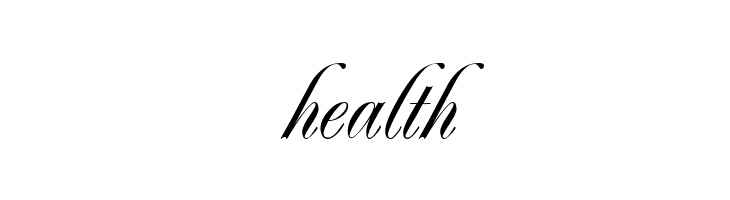
A bold, gothic-style font with intricate, three-dimensional detailing.
An elegant and sophisticated cursive script font with fluid, connected letters.
A bold, flowing script font with elegant curves and smooth lines.
A sophisticated italic font with a modern classic style and medium contrast.
A bold, decorative font with intricate flourishes and high contrast.
An ornate, decorative font with intricate swirls and vintage calligraphic style.
An elegant script font with intricate loops and swirls, perfect for refined and artistic projects.
A bold, flowing script font with elegant loops and high contrast.
An elegant, flowing script font with intricate, italicized characters.
An elegant, flowing script font with bold, italicized strokes and ornate flourishes.
An elegant, decorative script font with intricate swirls and flourishes.
A bold, decorative font with intricate serifs and ornate flourishes.
A modern and elegant font with smooth curves and a clean appearance.
A bold, expressive script font with high contrast and dynamic flow.
A bold, medieval-style font with Gothic influences and intricate detailing.
An elegant script font with flowing, ornate characters and sophisticated swashes.
An elegant script font with flowing, ornate characters and a sophisticated style.
An elegant script font with flowing, interconnected letters and elaborate swashes.
A traditional blackletter font with intricate detailing and dramatic flourishes.
A bold, ornate blackletter font with high contrast and intricate detailing.
An ornate, Gothic-style font with intricate flourishes and embellishments.
A decorative blackletter font with intricate detailing and historical elegance.
An ornate, decorative font with intricate swirls and flourishes, perfect for elegant designs.
An ornate, vintage-style font with decorative frames around each character.
A bold, serif font with sharp, angular details and a classic yet modern feel.
A bold and ornate blackletter font with intricate details, ideal for gothic-themed projects.
An elegant, cursive font with intricate flourishes, ideal for formal and decorative uses.
A bold, flowing script font with elegant, cursive strokes and seamless connections.
An elegant and flowing script font with intricate loops and graceful lines.
An elegant, flowing script font with classic and modern elements.
An elegant, flowing script font with a handwritten style.
An elegant, cursive script font with intricate, flowing designs.